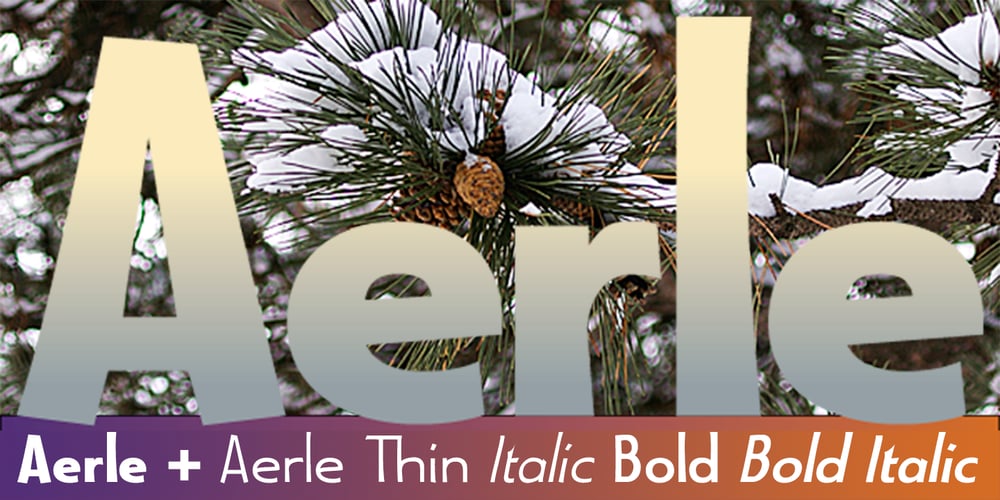
Aerle Font Family was designed by David Bergsland and published by Hackberry Font Foundry. Aerle contains 5 styles and family package options. My first font for 2009 was Aerle. It is a new dark sans serif font in my continuing objective of designing book fonts that I can really use. It made a little ripple in the industry, but more than that I found that I loved it with Aramus and Artimas — my latest book font family with the same proportions. In many ways, Aerle is a very different direction for me built on what I have learned on Aramus and other recent developments in my style. The concept came to me while using Bitstream’s Mister Earl on a site online—though there is no direct reference. I wanted a more playful heavy sans with a much smaller x-height than I have been using lately, plus taller ascenders. As I was using Aerle, I constantly needed a light and bold version. The new direction I am taking is a result of a decision that my fonts, though I loved the character shapes, produced an even type color that is too dark or a little dense. Aerle was an attempt to get away from that look even though the letterspacing is quite tight. For Aerle Thin I pushed a little further in that direction and increased the letterspacing. The hand-drawn shapes vary a lot, many pushing the boundaries of the normal character. This gives a little looseness and helps the lightness in feel I am looking for. It will be interesting to see where this all goes. Most new type around the world is far too perfect for my taste. While the shapes are exquisite, the feel is not human but digital mechanical. I find myself wanting to draw fonts that feel human — as if a person crafted them. In most ways this is a normal font for me in that it has caps, lowercase, small caps with the appropriate figures for each case. These small caps were very small (x-height as is proper). So Aerle’s small caps are a little oversize because they plugged up too bad at x-height size. The bold is halfway between. These size variations seem important and work well in the text. This font has all the OpenType features in the set for 2009. There are several ligatures for your fun and enjoyment: bb gg sh sp st ch ck ff fi fl ffi ffl ffy fj ft tt ty Wh Th and more. Like all of my fonts, there are: caps, lowercase, & small caps; proportional lining figures, proportional oldstyle figures, & small cap figures; plus numerators, denominators, superiors, inferiors, and a complete set of ordinals 1st through infinity. Enjoy!